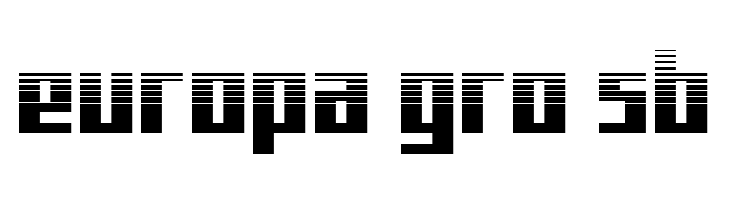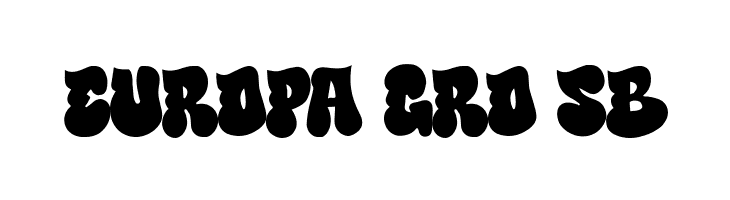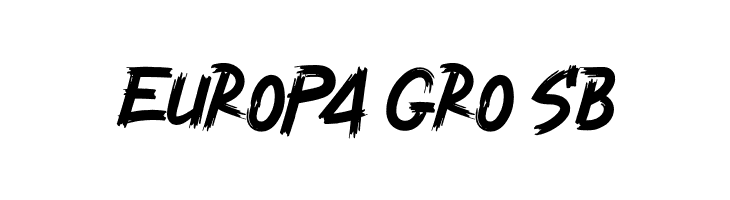
A bold, angular font with a modern and assertive style.
A bold, futuristic font with a striped, gradient effect.
A bold, geometric font with a halftone gradient effect.
A bold, angular font with a leftward slant, offering a modern and dynamic style.
A bold, condensed font with sharp, angular lines and tight spacing.
A bold, angular font with a modern and impactful style.
A bold, geometric font with straight lines and a modern, industrial style.
Bold, playful font with a bubbly appearance.
Bold brush-style font with dynamic strokes.
Decorative handwritten script font.